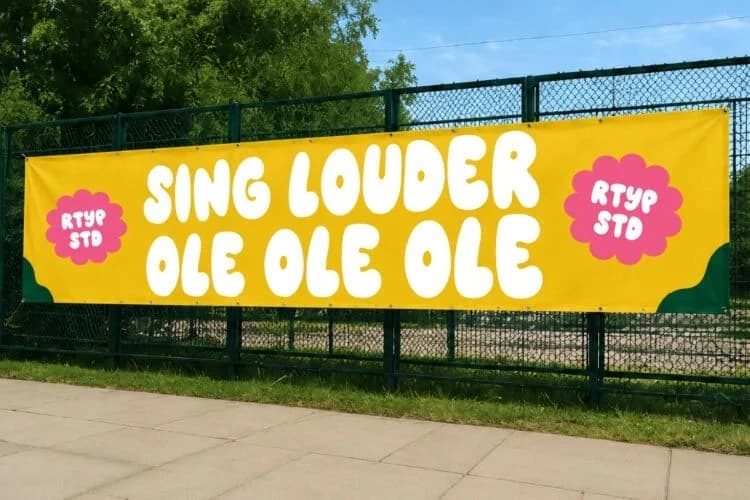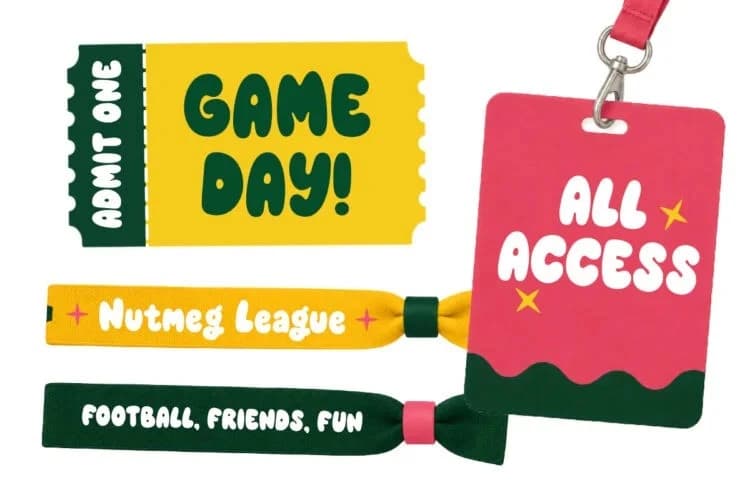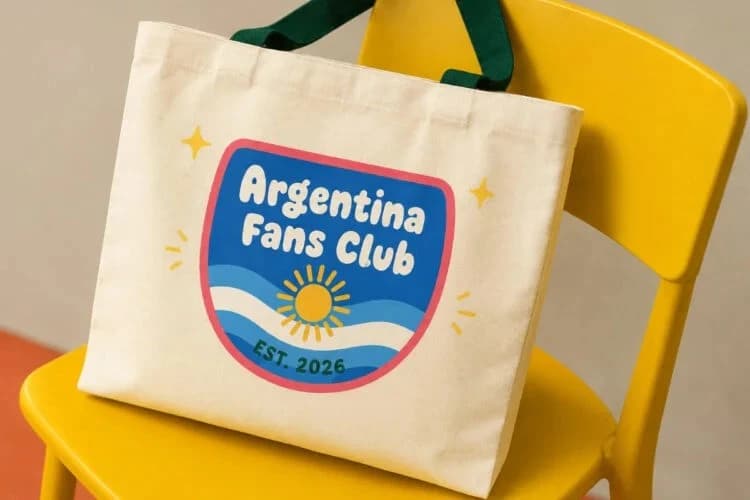
Nutmeg League Font
Nutmeg League Font is a playful display font inspired by football chants, match-day energy, and colorful supporter culture. Designed with chunky bubbly shapes, soft curves, and quirky character forms, this font brings a loud, cheerful, and nostalgic vibe to your work.